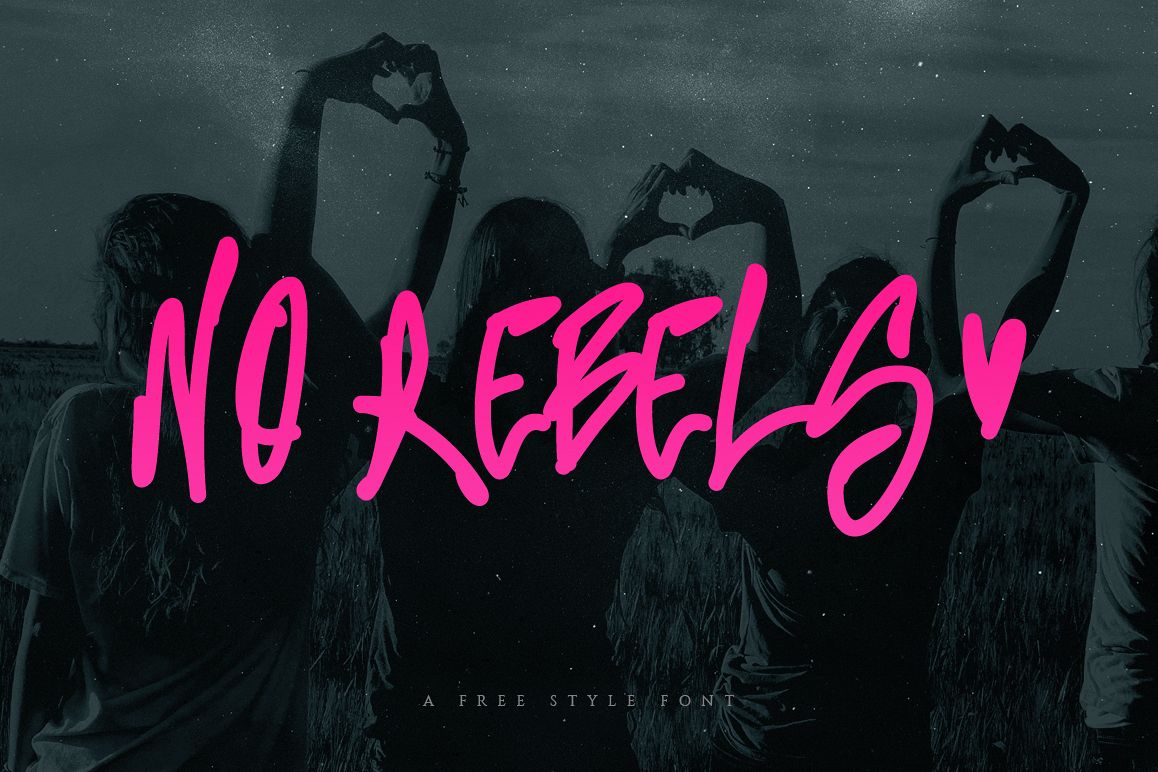
No Rebels Freestyle Font
No Rebels is a hand drawn uppercase font that works
great for any freestyle design. Looks amazing in quotes, instagram and
pinterest posts, recipes, blogs, magazines, ads, etc.